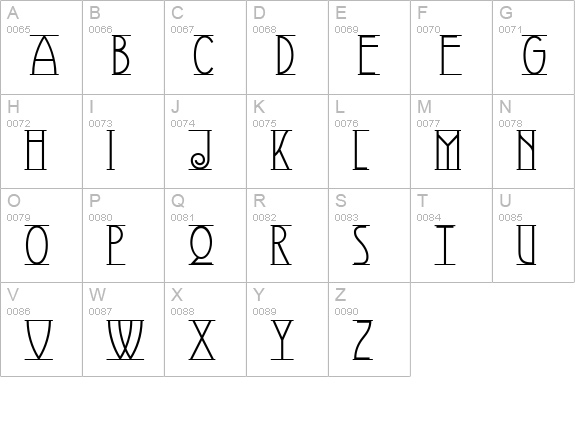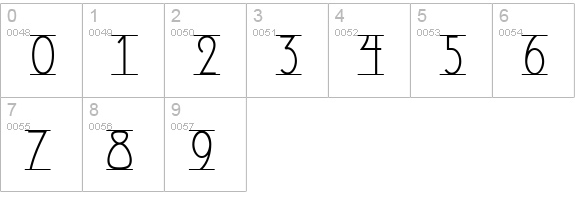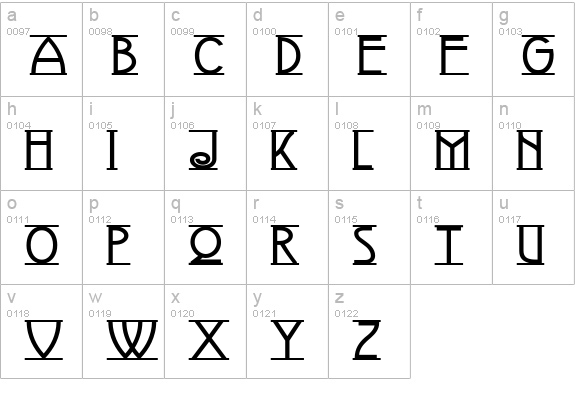
Avignon NF Font Details
Avignon NF is a stunning display font that exudes elegance and sophistication. Its intricate details and classic style make it perfect for adding a touch of luxury to any project. The ornate serifs and flowing lines of Avignon NF give it a timeless appeal that is sure to captivate any audience. What makes Avignon NF even more enticing is that it is available for free download at FontsMarket.com. This means you can easily access this exquisite font and use it in your designs without any cost. Whether you're working on a branding project, wedding invitations, or any other creative endeavor, Avignon NF is sure to make a statement with its unique charm and grace. Download Avignon NF today and elevate your designs with this beautiful and free font.